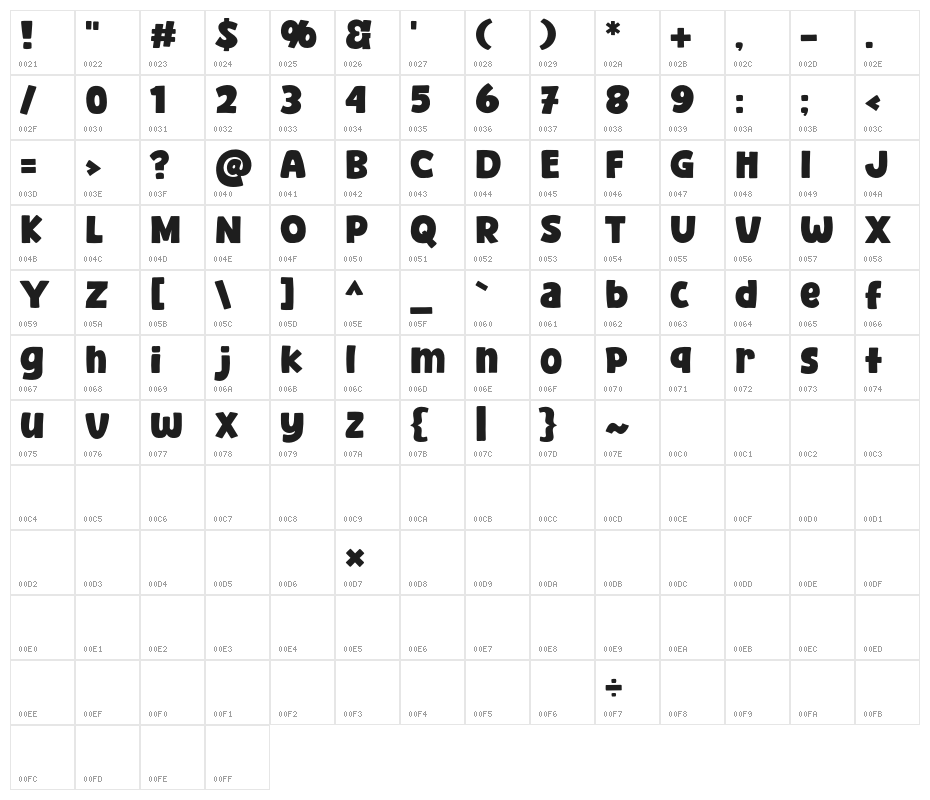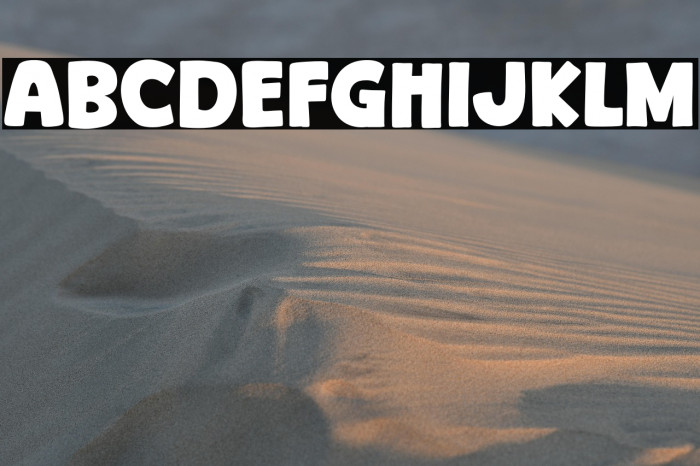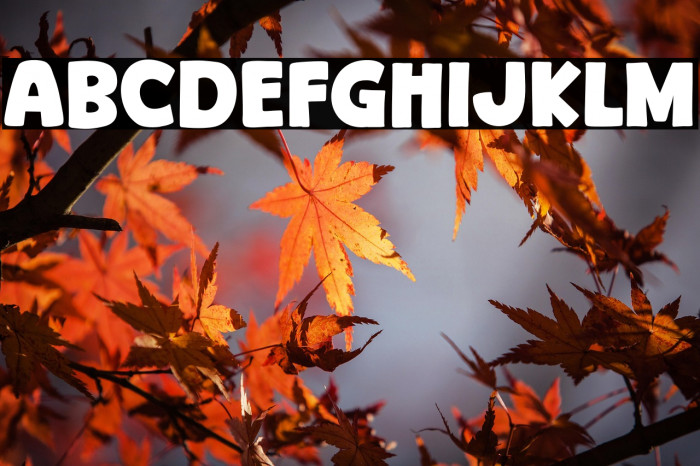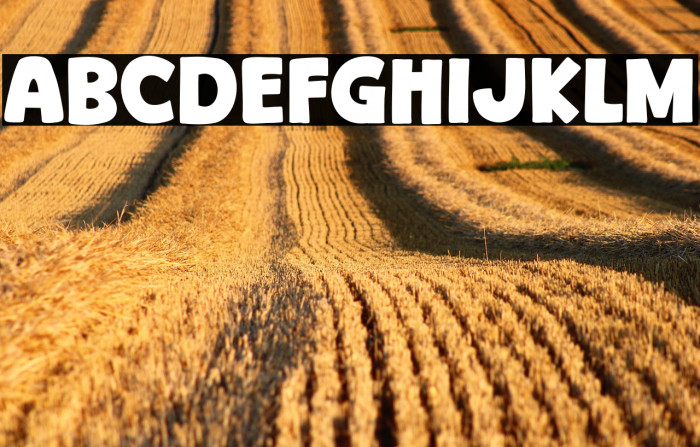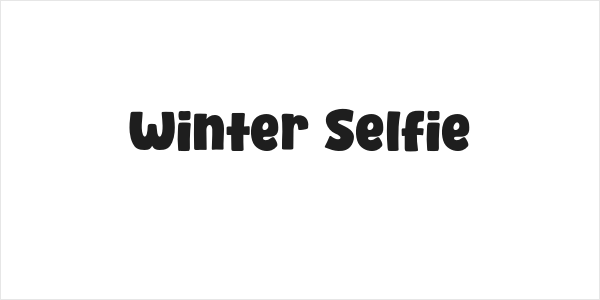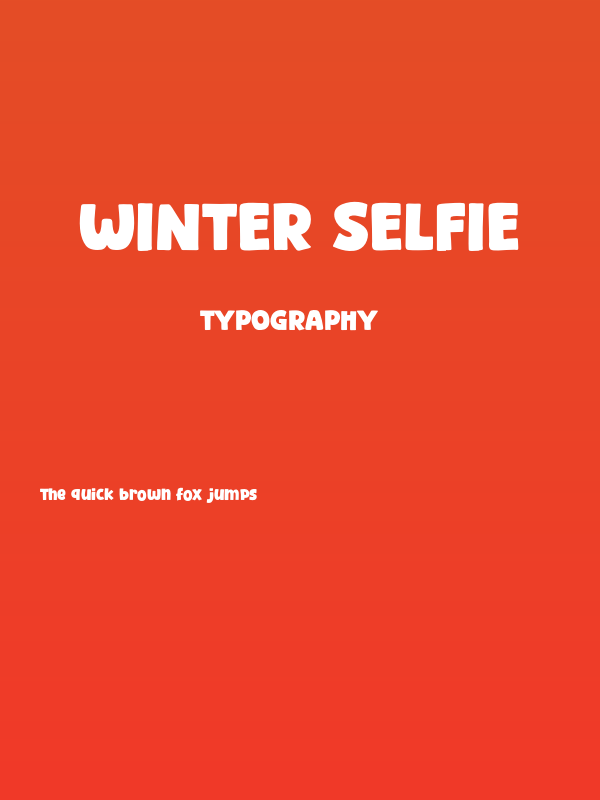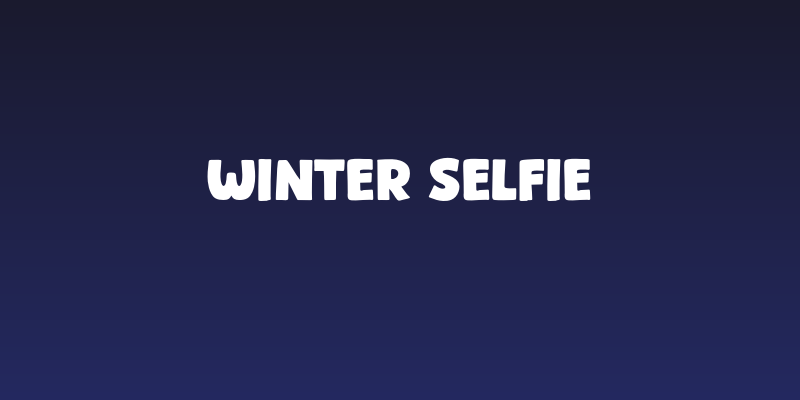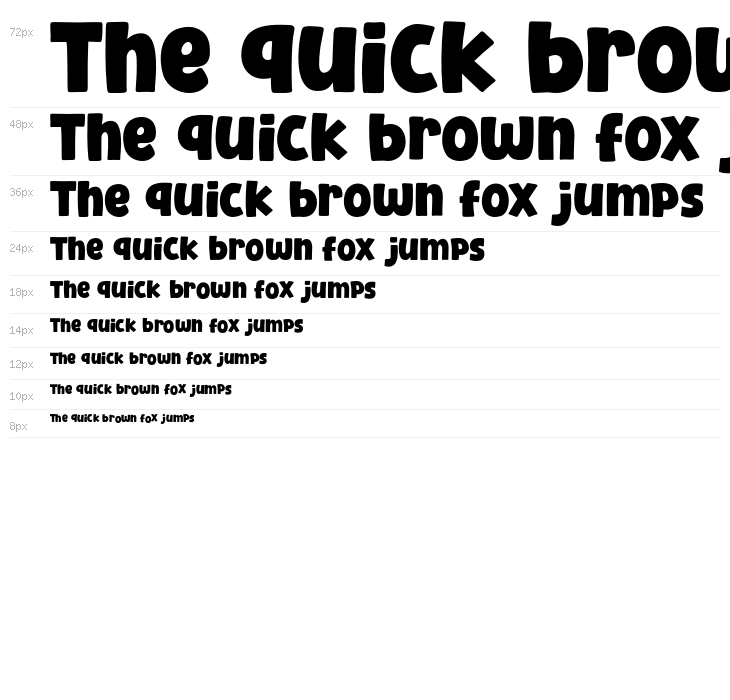
Winter Selfie Font
Winter Selfie Description
This font features bold, rounded characters with a playful and friendly appearance. The letters are thick and uniform, creating a strong visual impact. The rounded edges and consistent stroke width give it a soft, approachable feel. The numbers and special characters maintain the same boldness and rounded style, ensuring a cohesive look across all elements. This font is highly legible, making it suitable for various design applications where a fun and inviting tone is desired.
| Proposed Projects | Ideal for children's books, playful branding, posters, and social media graphics. |